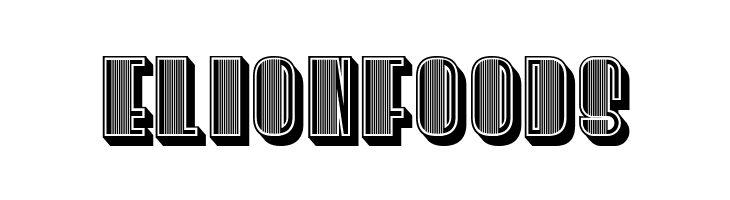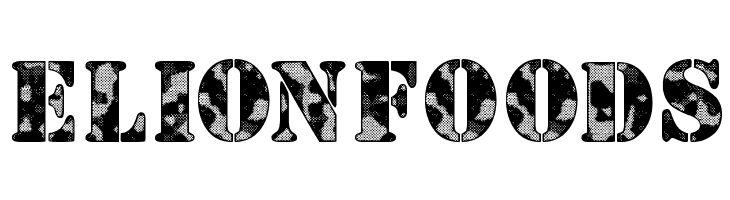
A distressed, grunge-style font with a rugged, textured appearance.
A rugged, hand-drawn font with a bold, dynamic style and rough texture.
A gritty, distressed font with a punk rock aesthetic, featuring bold, jagged characters.
A bold, decorative font with a 3D shadow effect and vertical stripes.
A playful, bold font with a hand-drawn appearance, perfect for informal projects.
A bold, distressed font with a playful, rugged appearance.
A bold, rugged font with uneven, jagged edges for a distressed look.
A bold, adventurous font with strong, angular lines and a rugged style.
A bold, camouflage-patterned font with a rugged, military-inspired design.
A bold, decorative font with tribal-inspired embellishments.